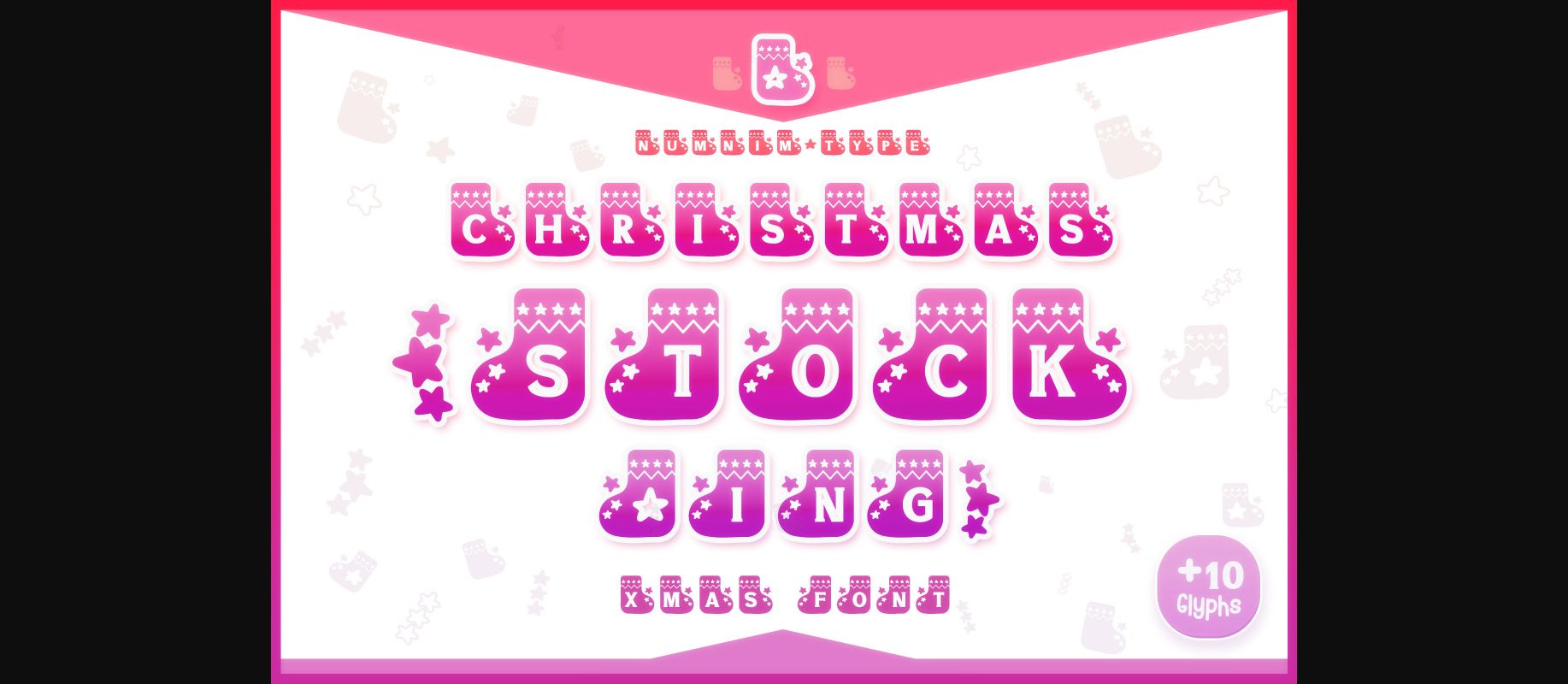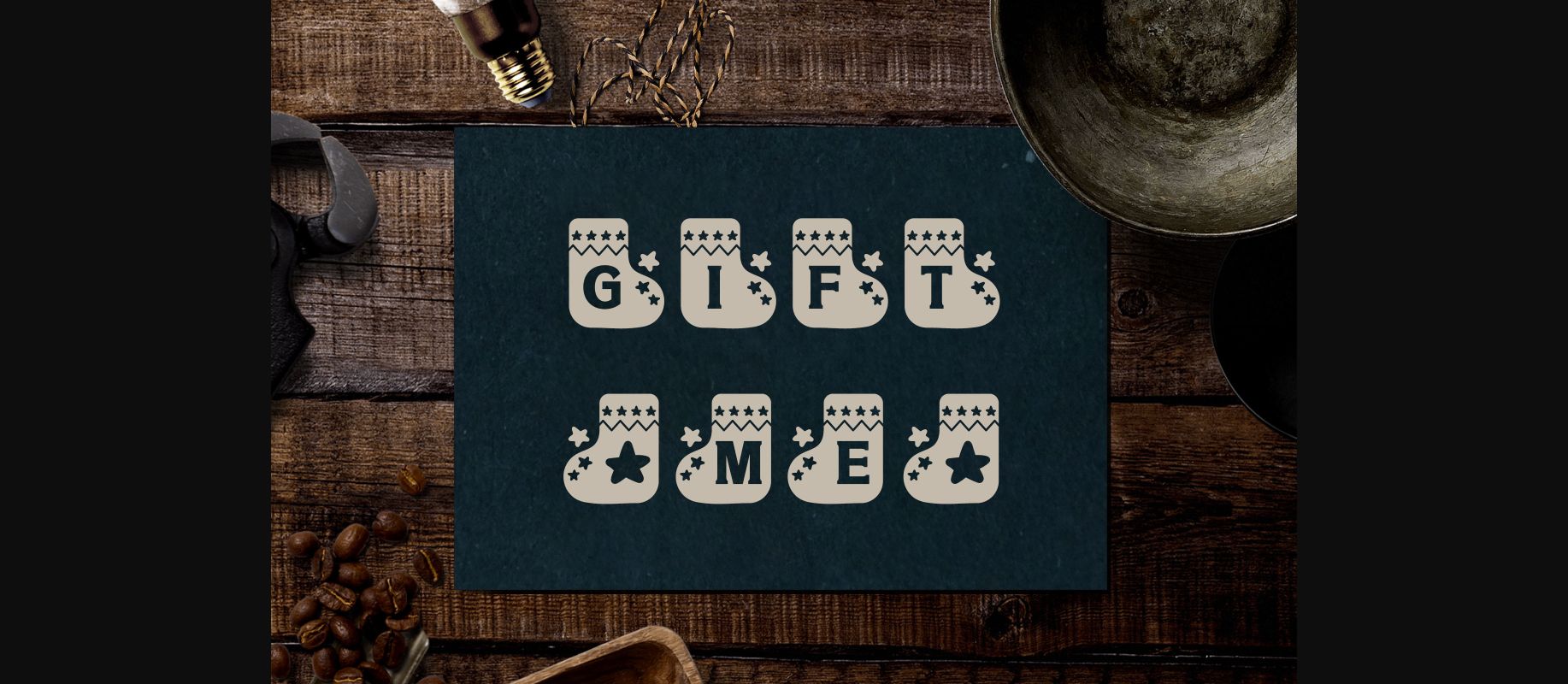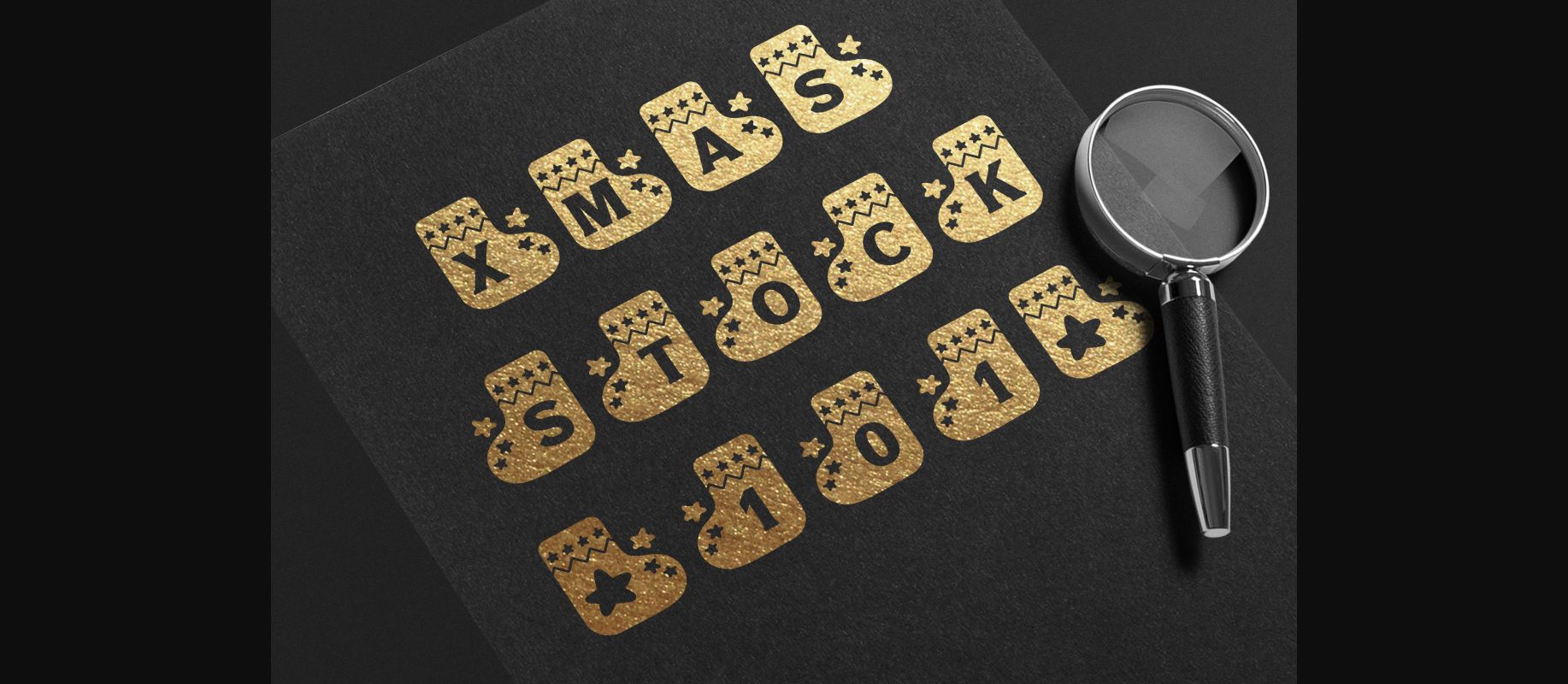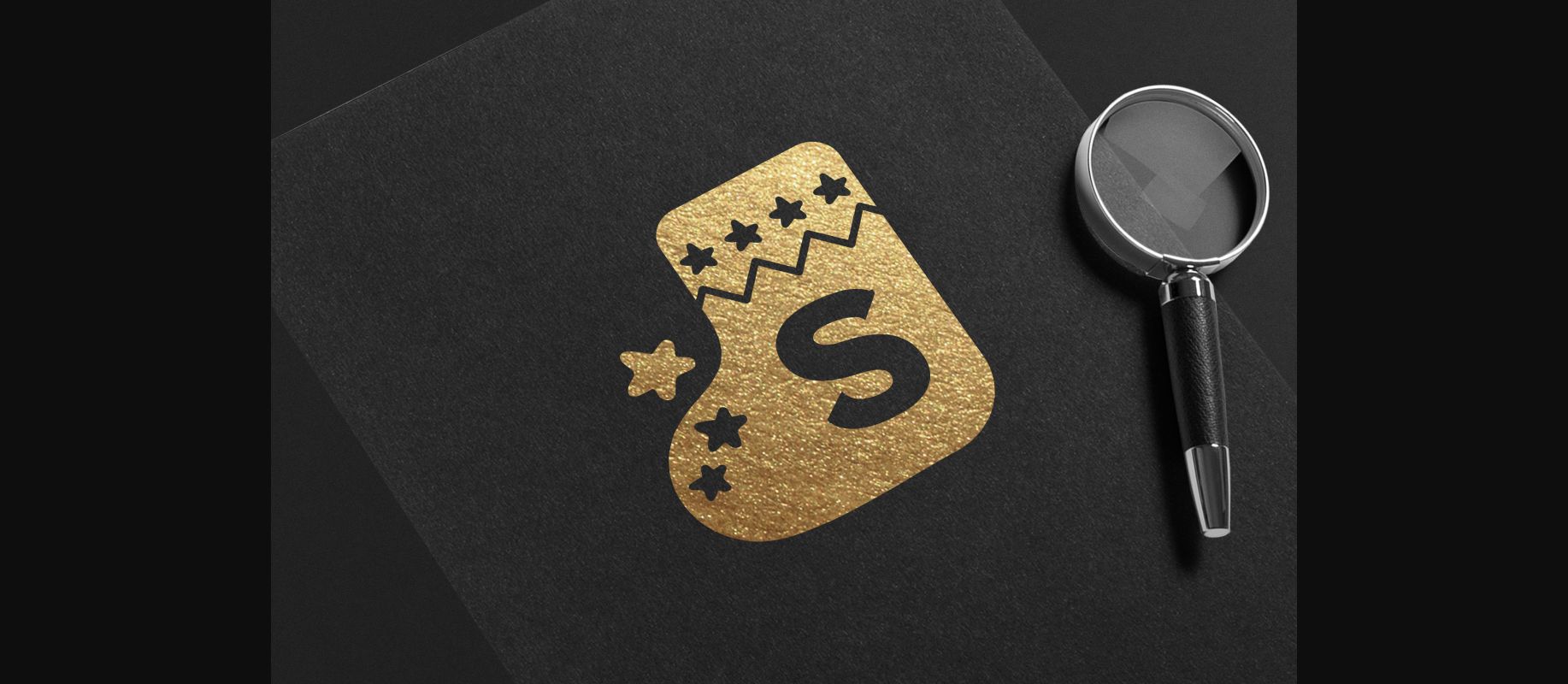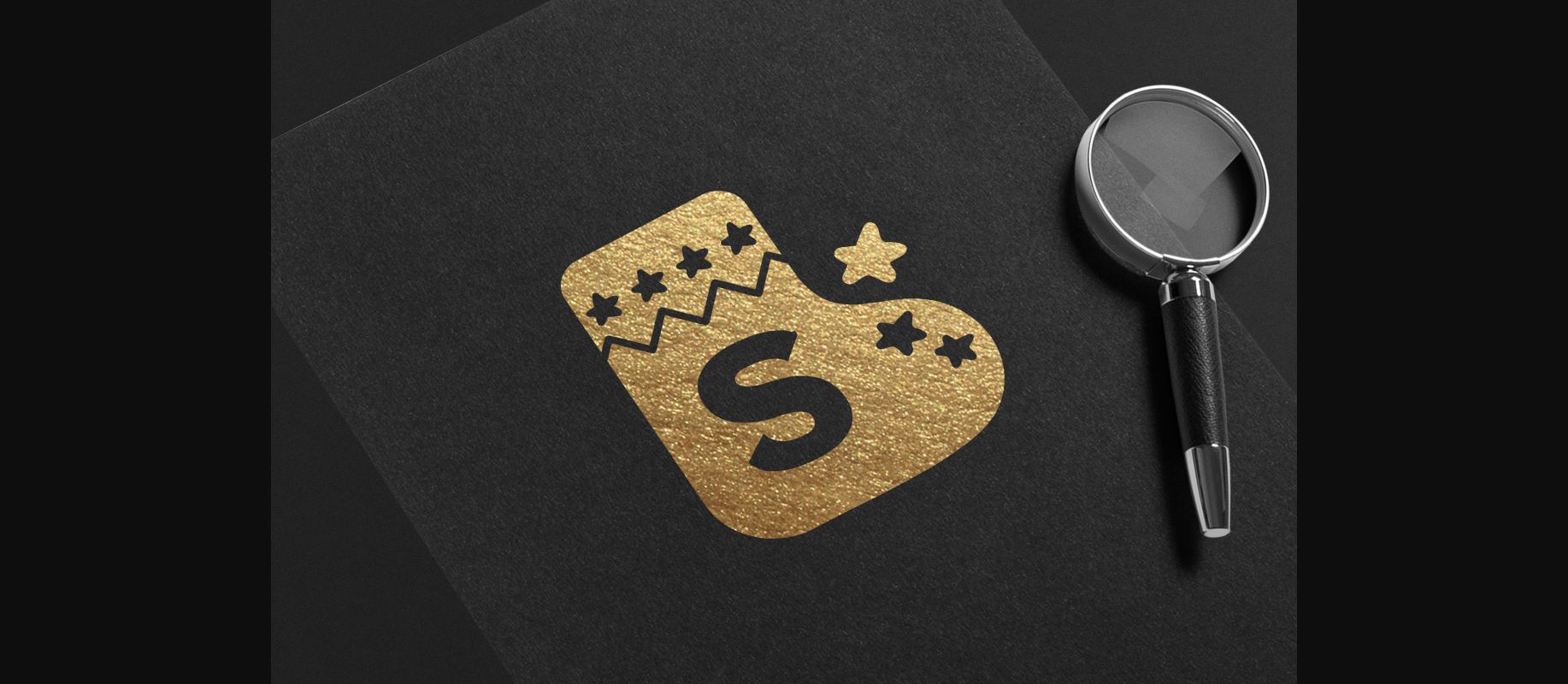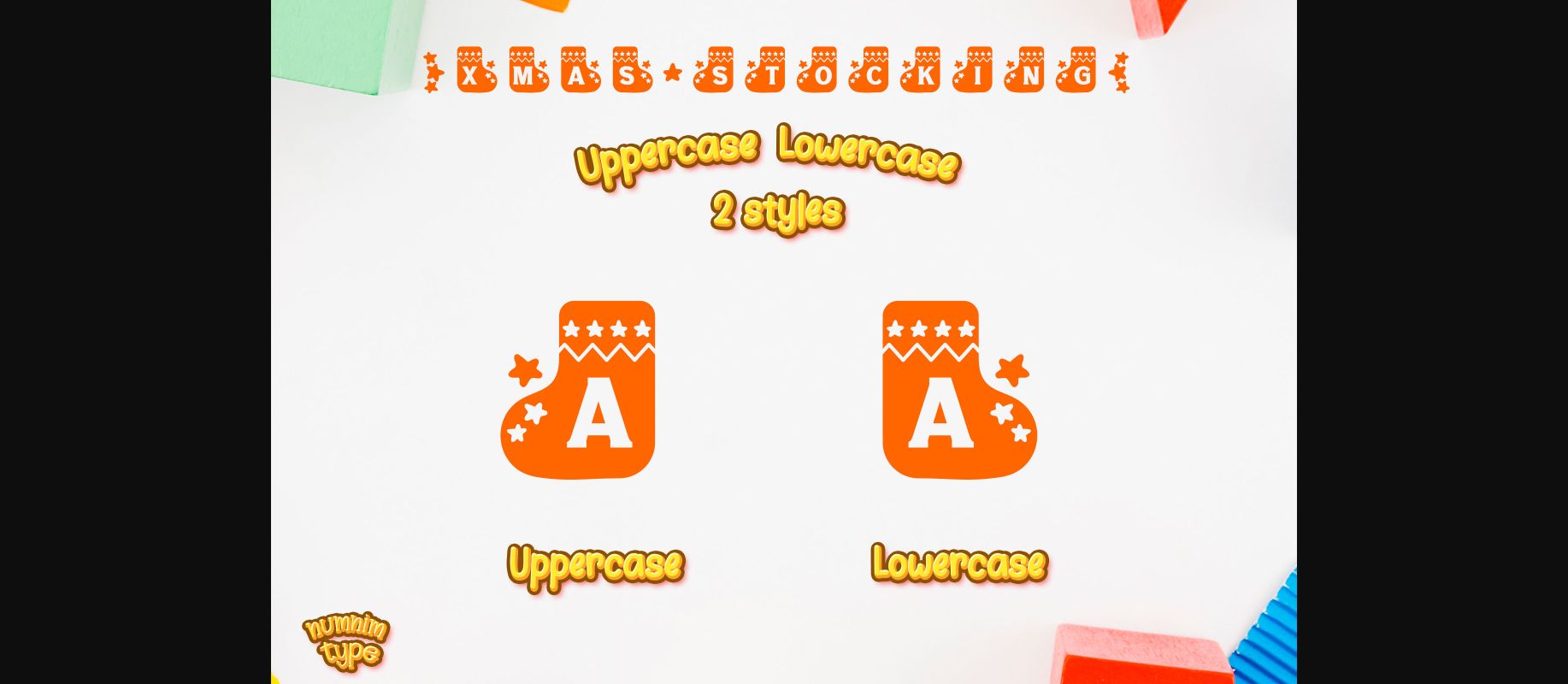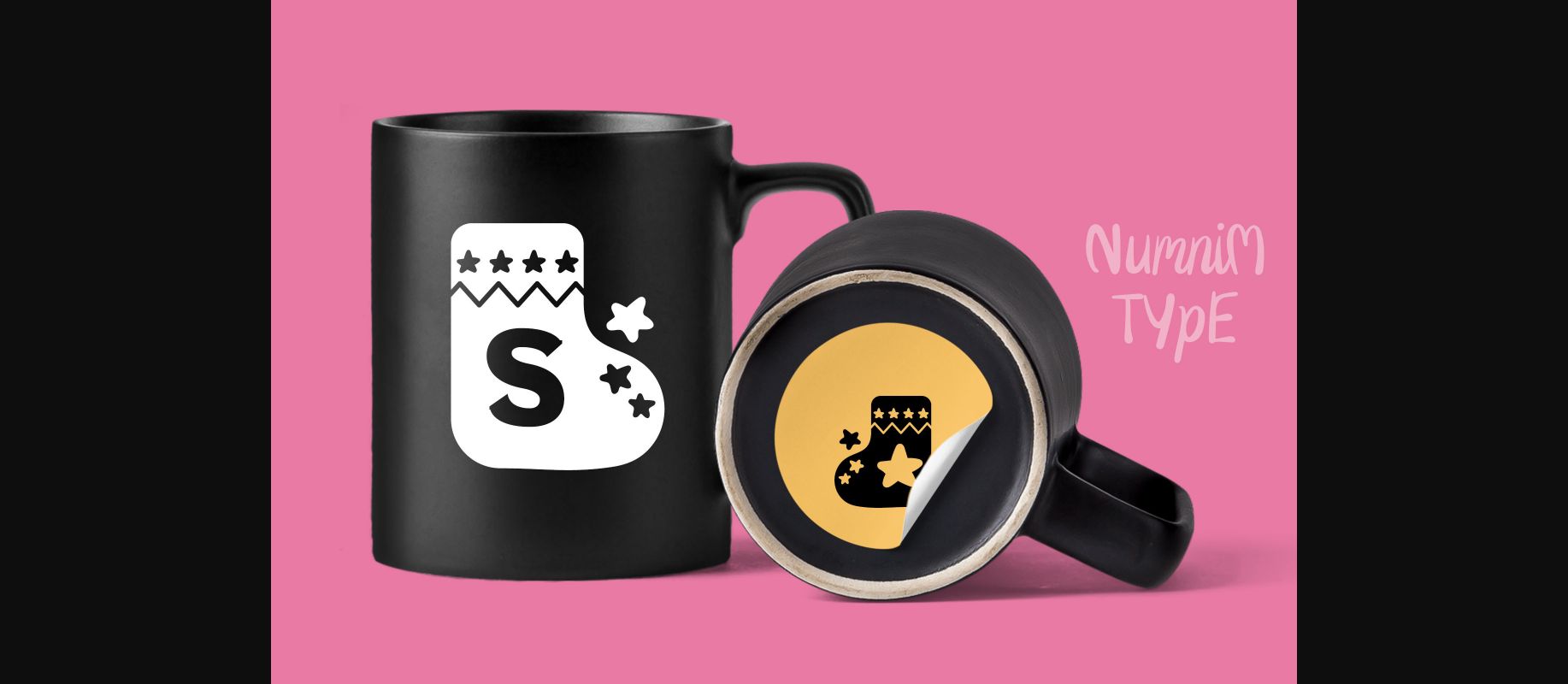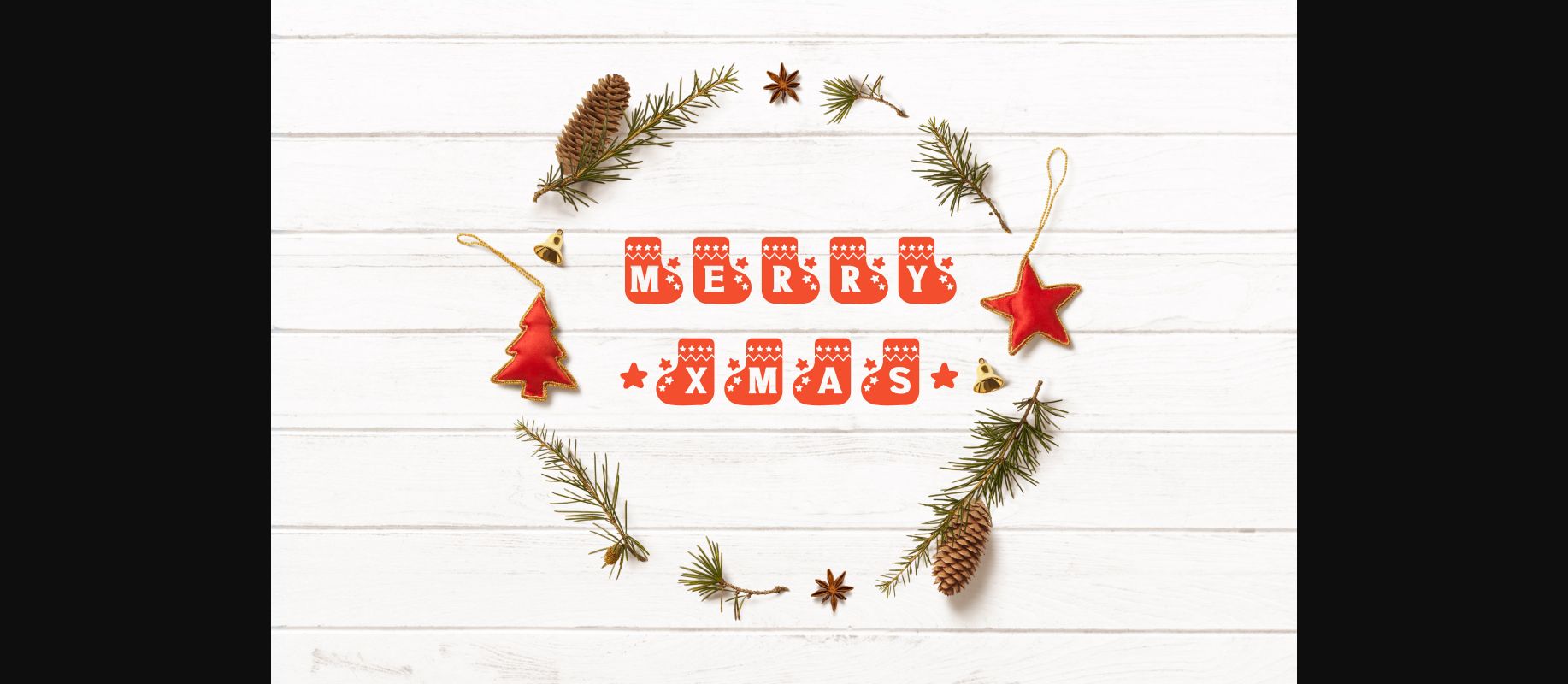
Christmas Stocking is a festive and joyful decorative font. It is ideal for writing holiday wishes, letters, wedding invitations, or any other design ideas.